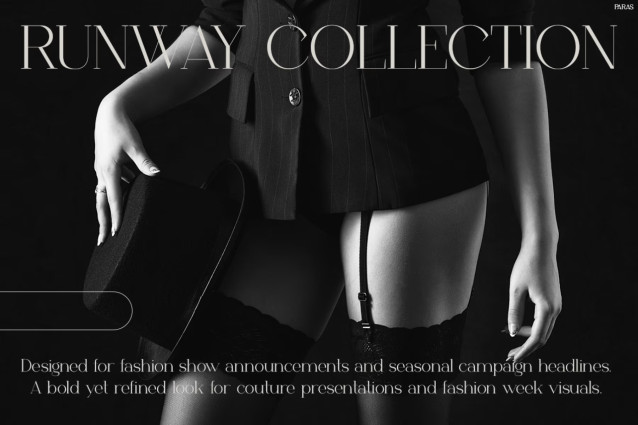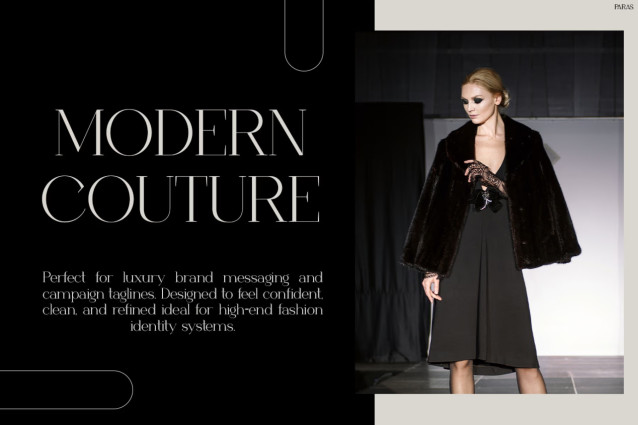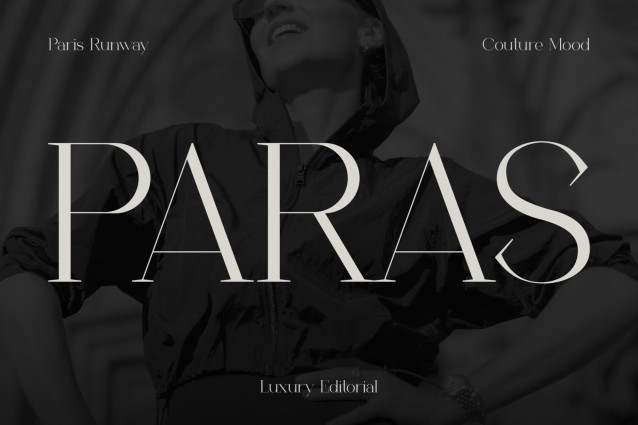
Paras Font delivers a refined serif look with strong visual impact and effortless elegance. Moreover, its thin strokes and graceful curves create an artistic and modern feel. The high-contrast letterforms make every word look confident and expressive.
In addition, Paras offers a sleek editorial style that feels clean, fashionable, and timeless. Therefore, it is perfect for projects that need sophistication without feeling too heavy. With multilingual support for 67 languages, this font gives both beauty and function for global-ready designs.